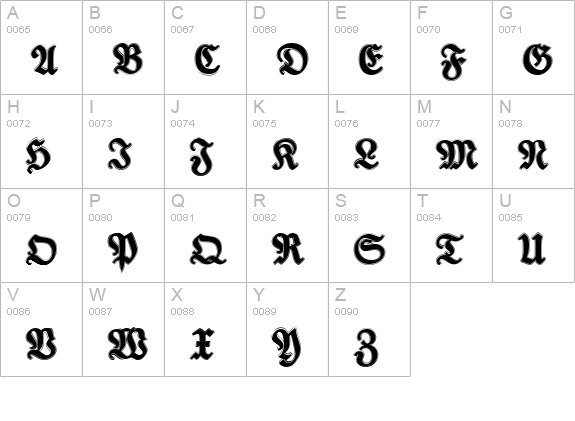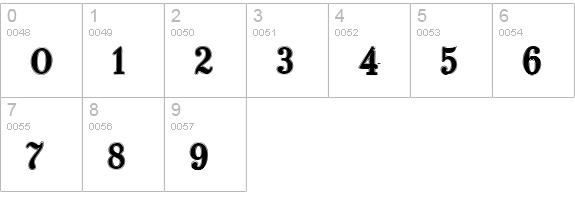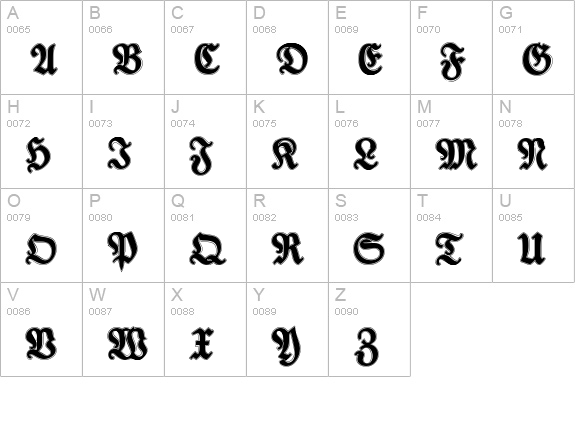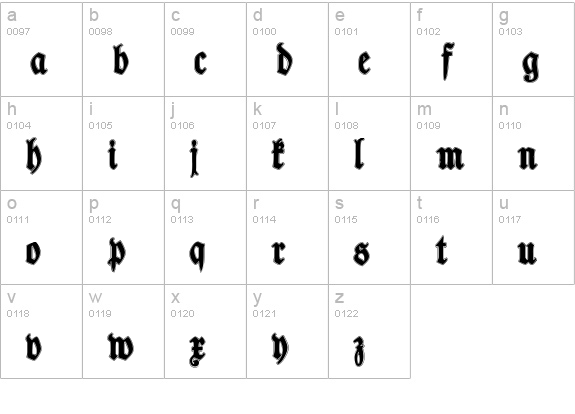
TypographerFraktur Contour Font Details
TypographerFraktur Contour font is a stunning display typeface that exudes elegance and sophistication. Its intricate and ornate letterforms are inspired by the traditional Fraktur style, showcasing a perfect balance between sharp edges and graceful curves. This font is designed to make a bold statement, adding a touch of vintage charm to any design project. With its unique contour design, TypographerFraktur Contour font stands out from the crowd, making it ideal for eye-catching headlines, logos, posters, and invitations. Each character is meticulously crafted with attention to detail, resulting in a harmonious and visually appealing composition. One of the best things about TypographerFraktur Contour font is that it is absolutely free to download at FontsMarket.com. Whether you're a professional designer, a student, or someone with a passion for typography, this font is readily available for you to use in your personal and commercial projects. By incorporating TypographerFraktur Contour font into your designs, you can evoke a sense of timeless beauty, while also adding a touch of uniqueness and sophistication. Its versatility allows it to be used in various design contexts, from traditional to modern, ensuring that your creations will always stand out. Don't miss the opportunity to enhance your design toolkit with this remarkable font. Download TypographerFraktur Contour today from FontsMarket.com and unlock the creative potential of this captivating typeface. With its free availability, you can explore its endless possibilities and bring your design visions to life.